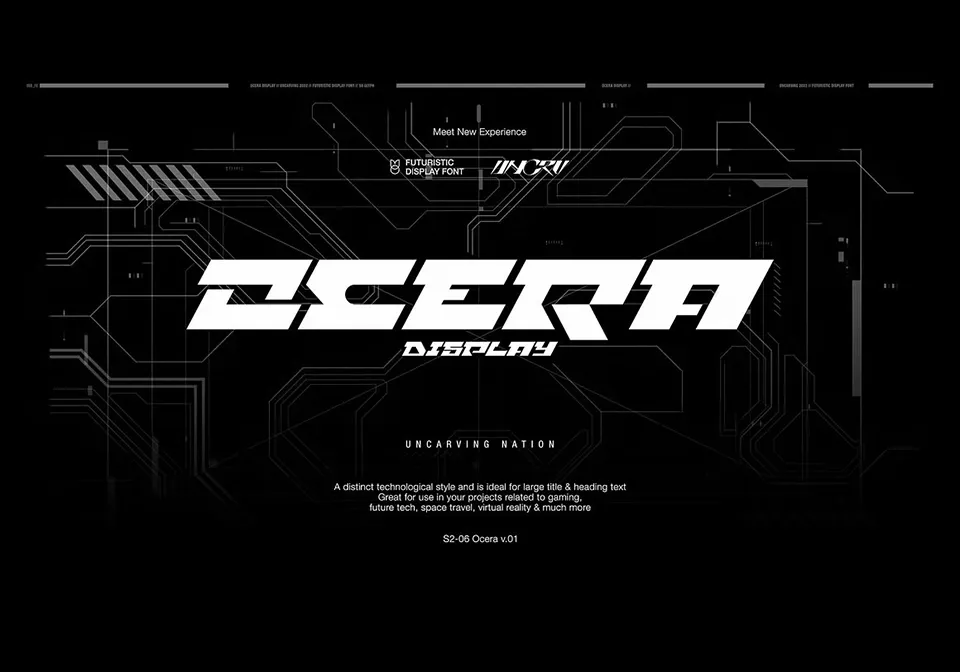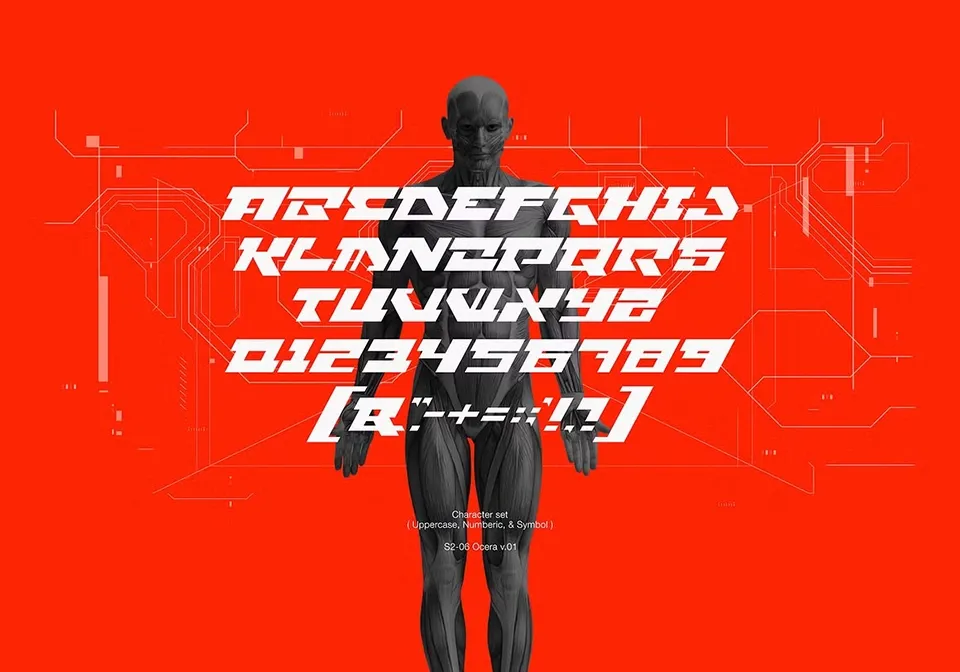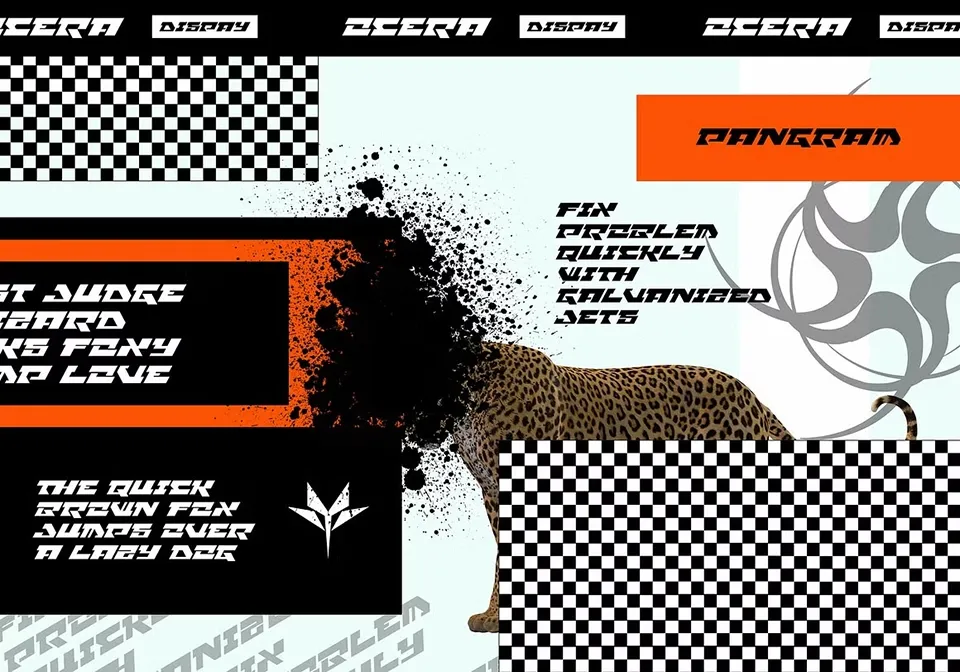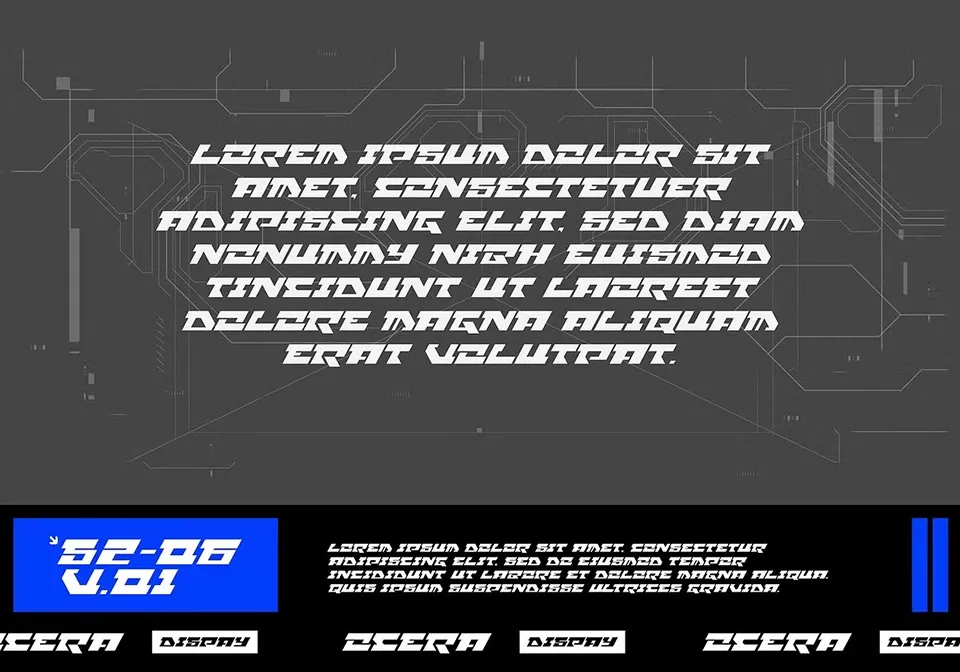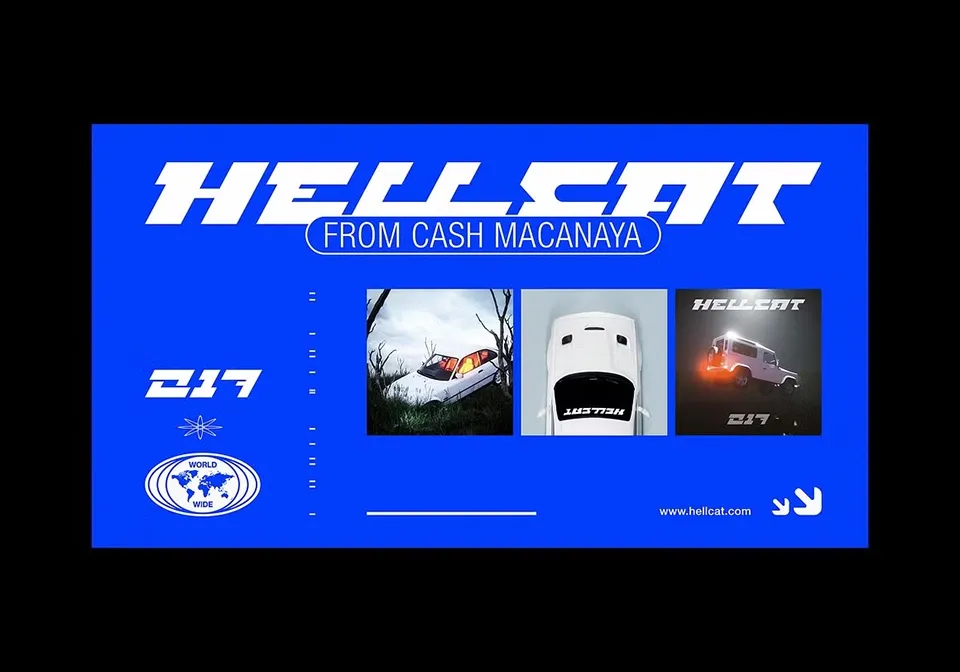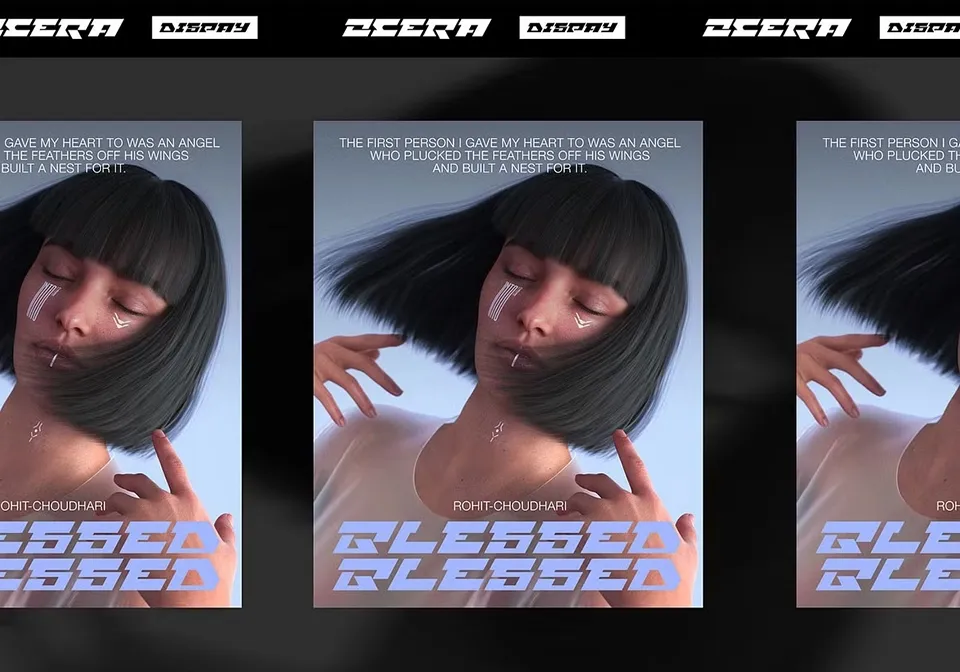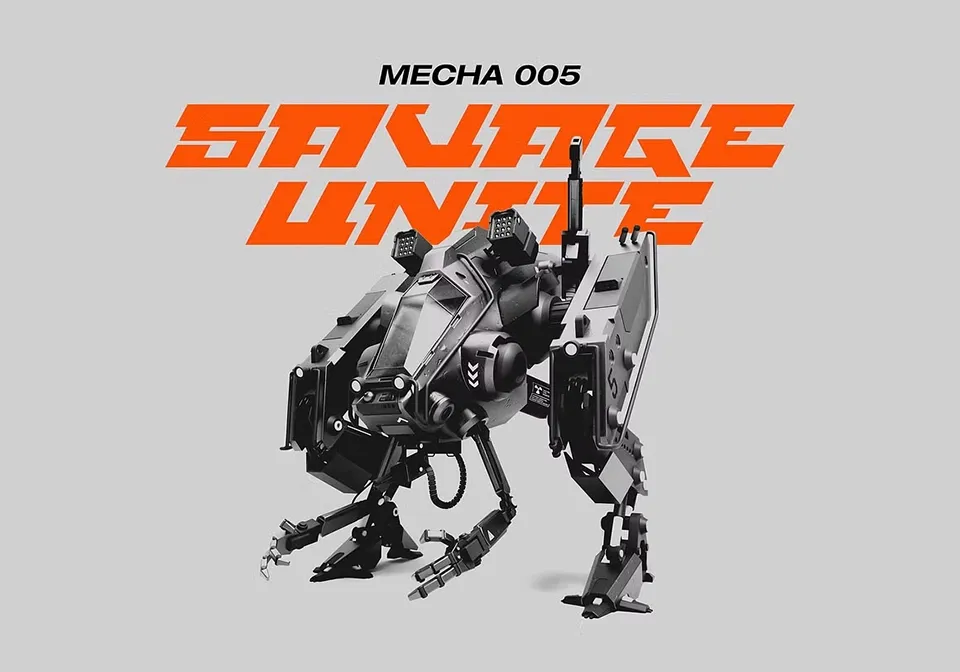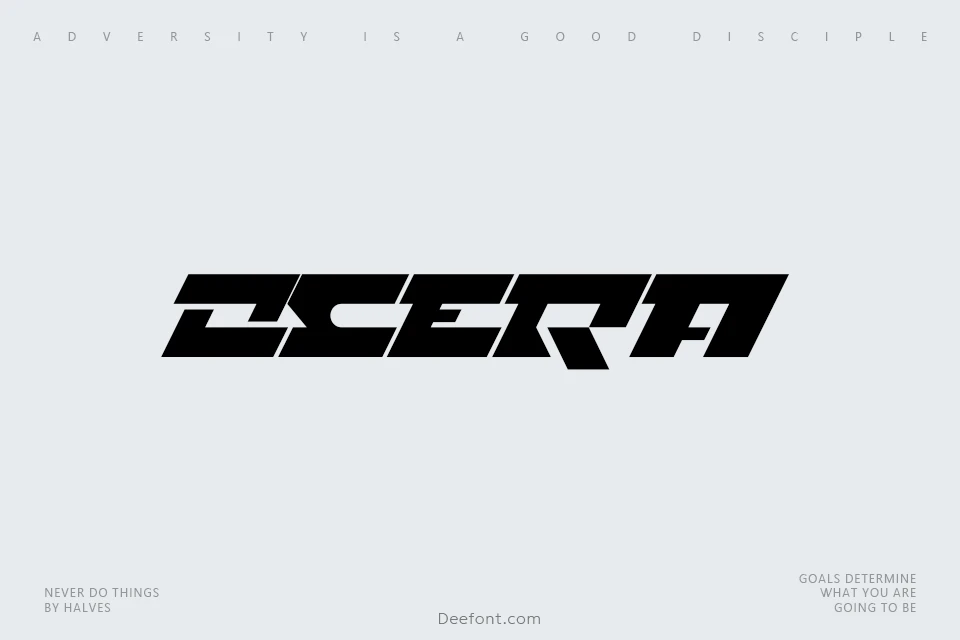
Ocera Font
Ocera Display Font is a futuristic display typeface inspired by speed fonts and Y2K aesthetics, featuring bold, angular shapes and a dynamic, modern slant. Ideal for large titles, headings, and projects related to gaming, future tech, space travel, and virtual reality, Ocera Display Font delivers a distinct technological style that stands out in any creative work.